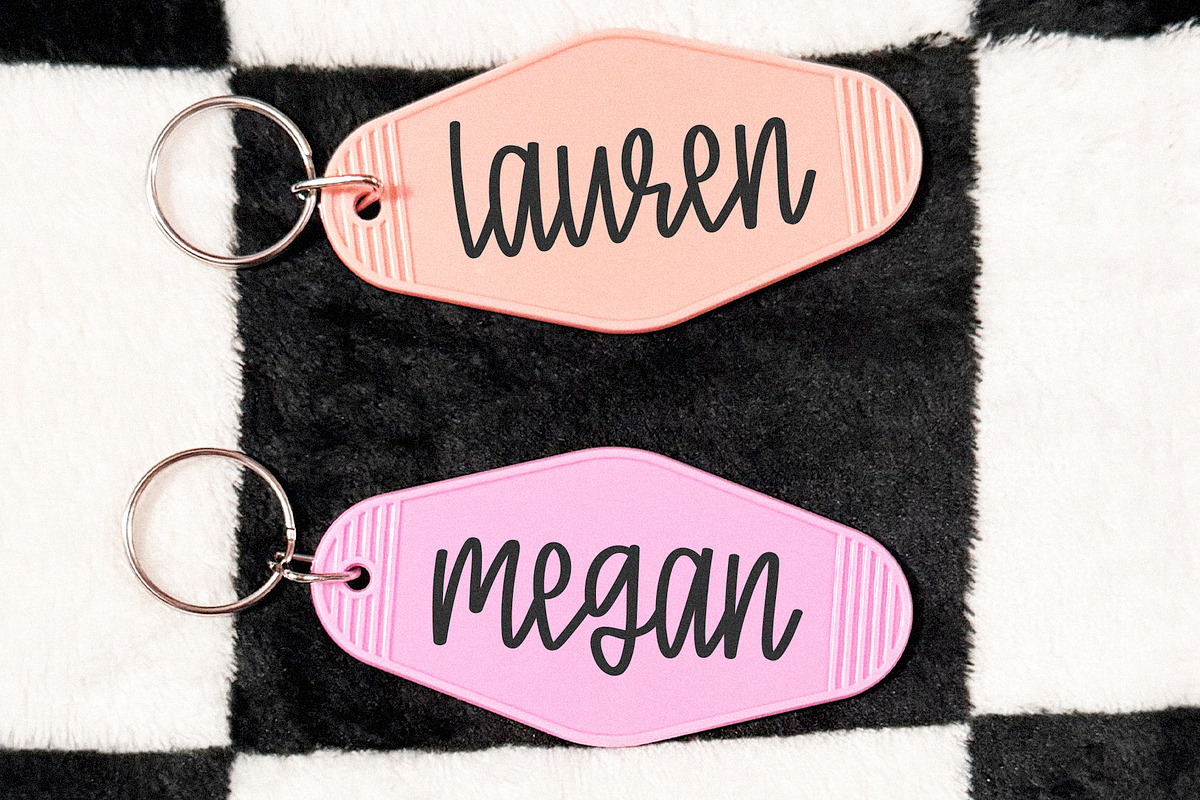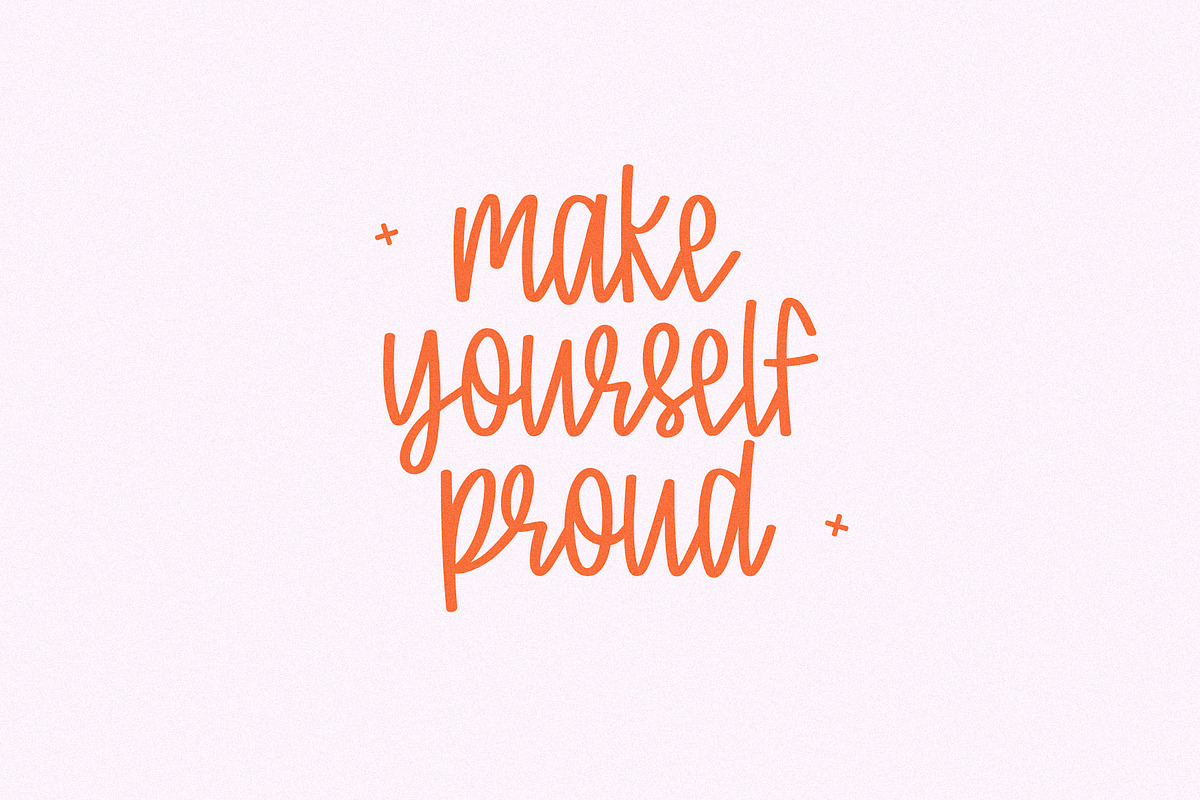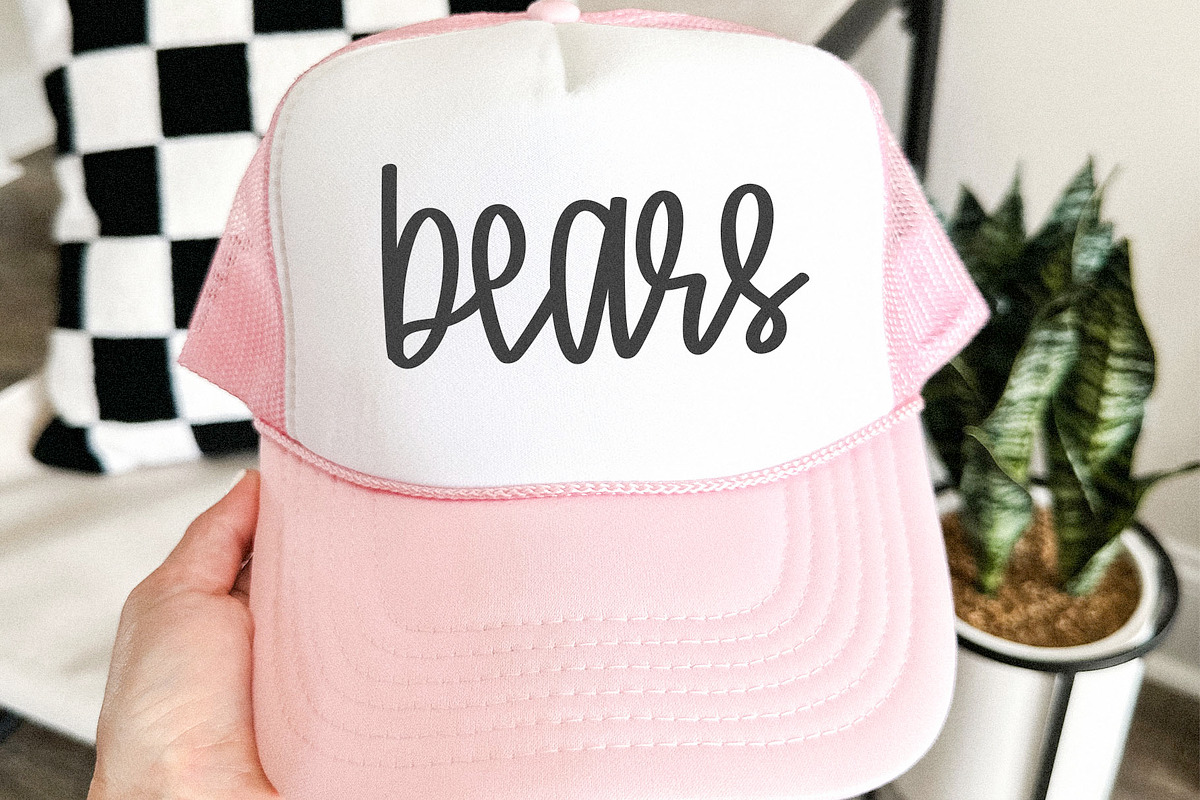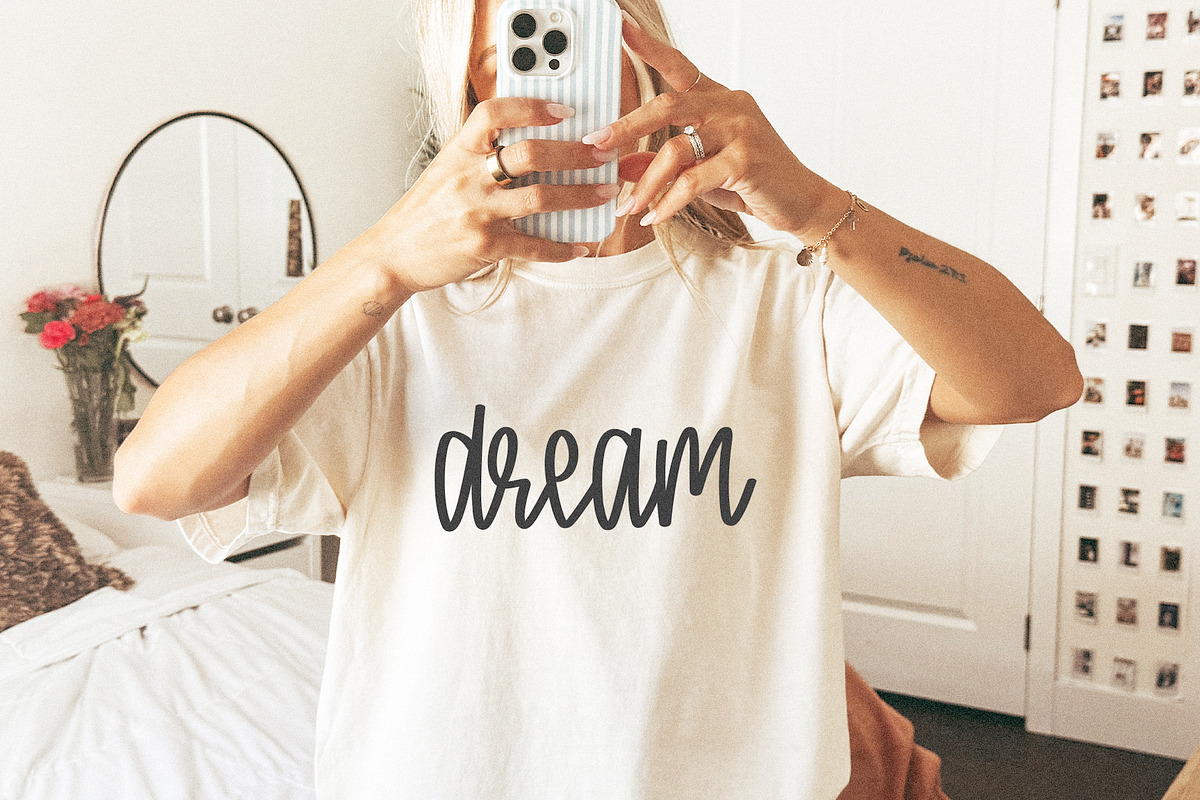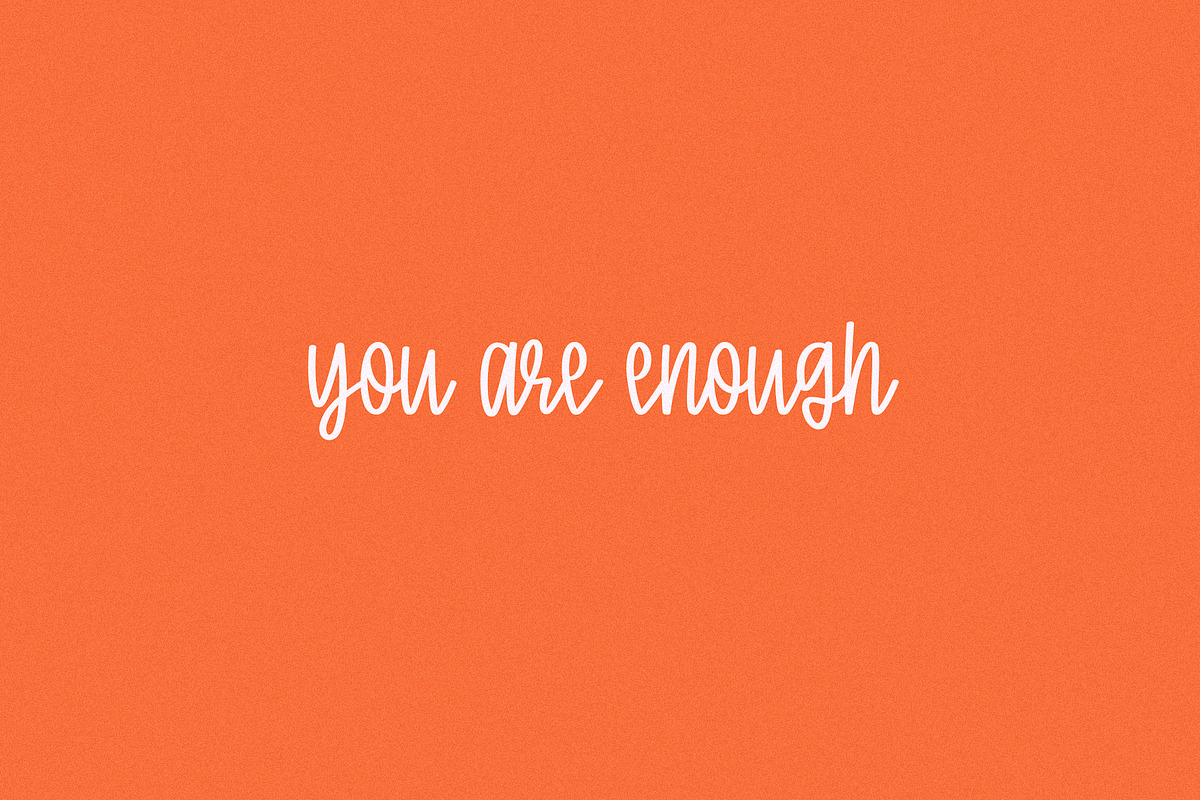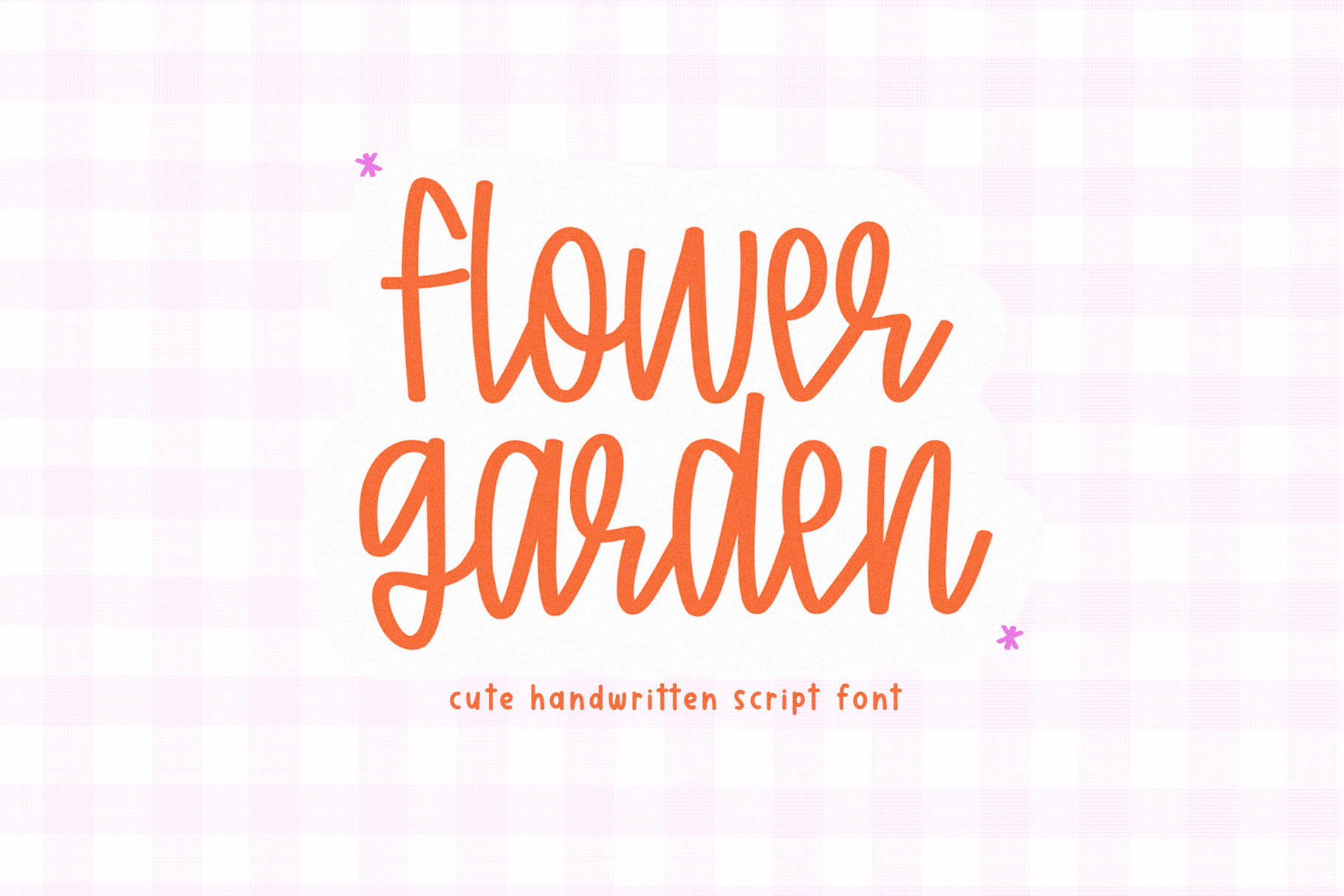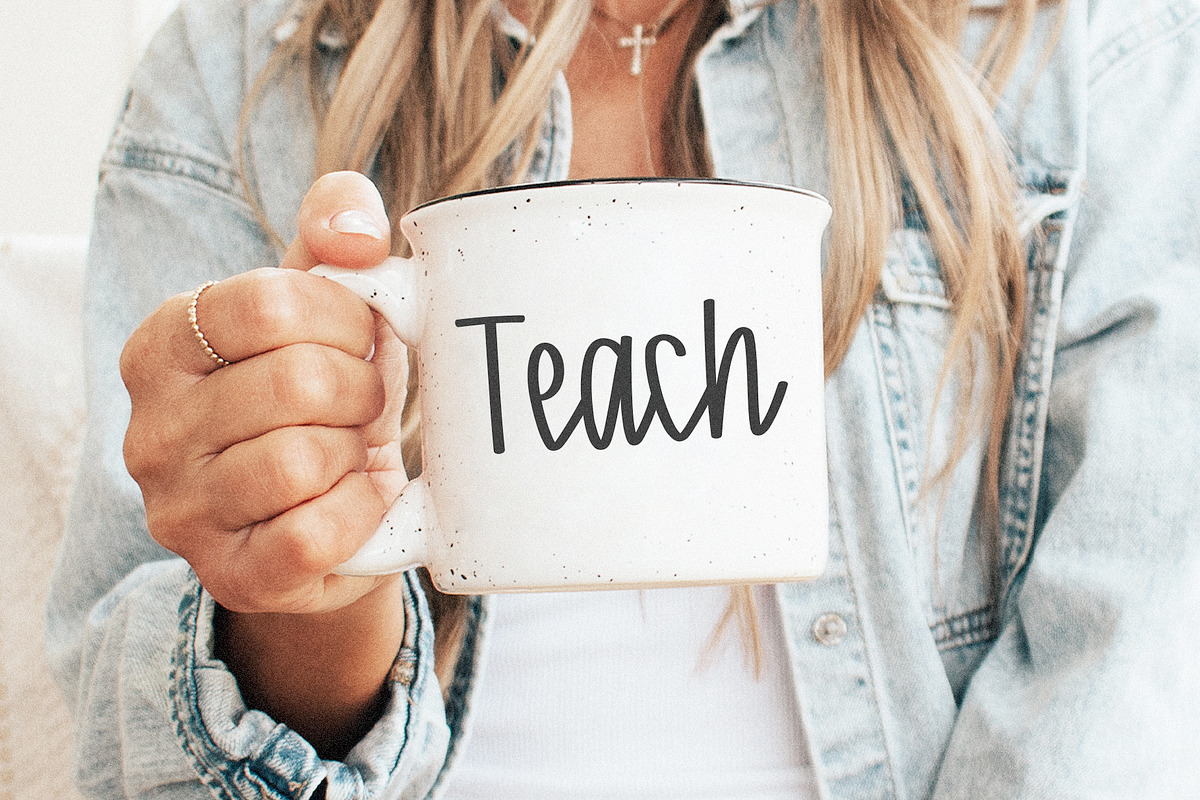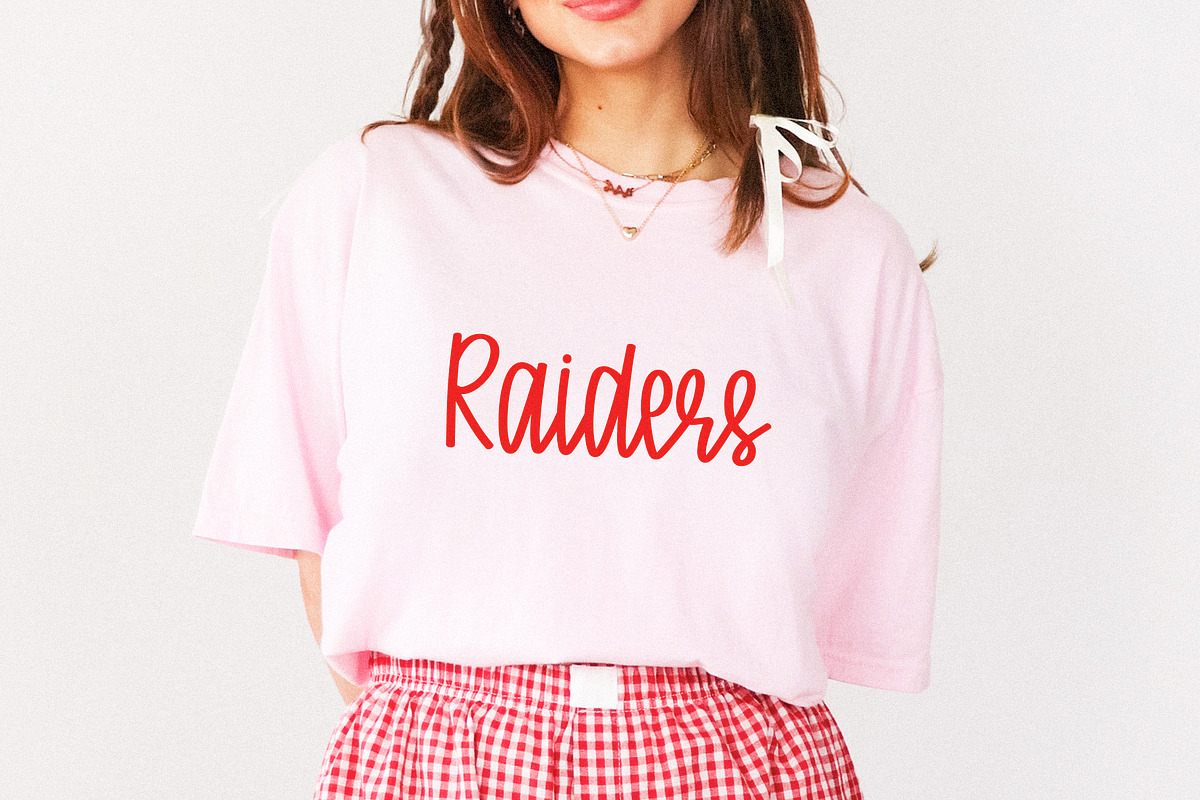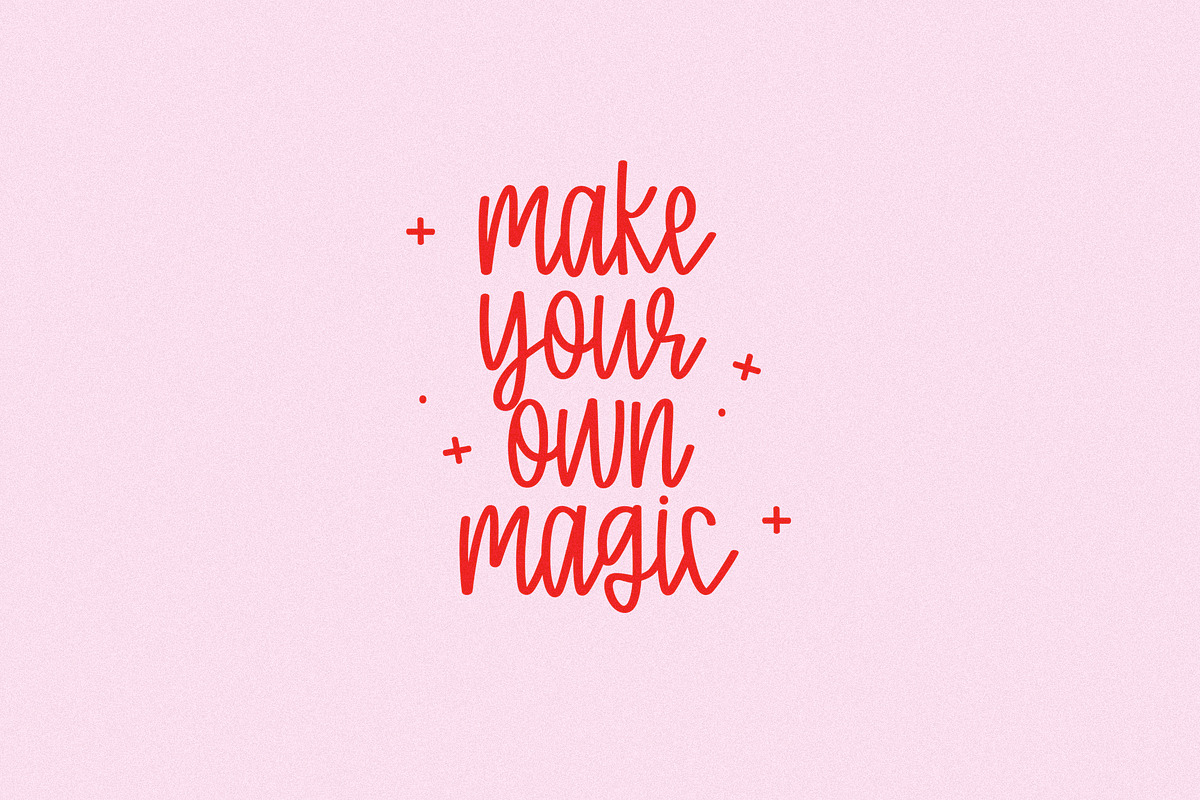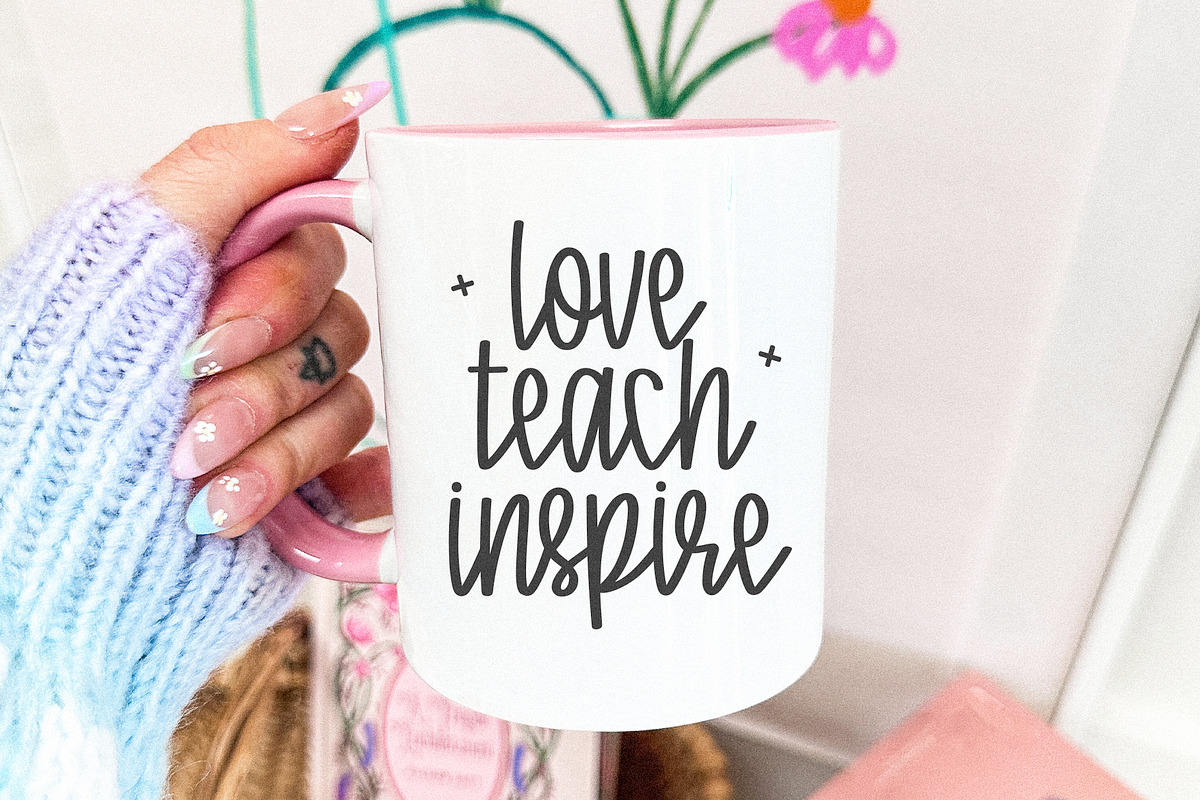
Flower Garden | Cute Script Font
Flower Garden is a cute script font.
This font is perfect for craft projects, personalization, painted banners, canva, logos, teachers, Cricut projects, wedding decor, invitations and more!